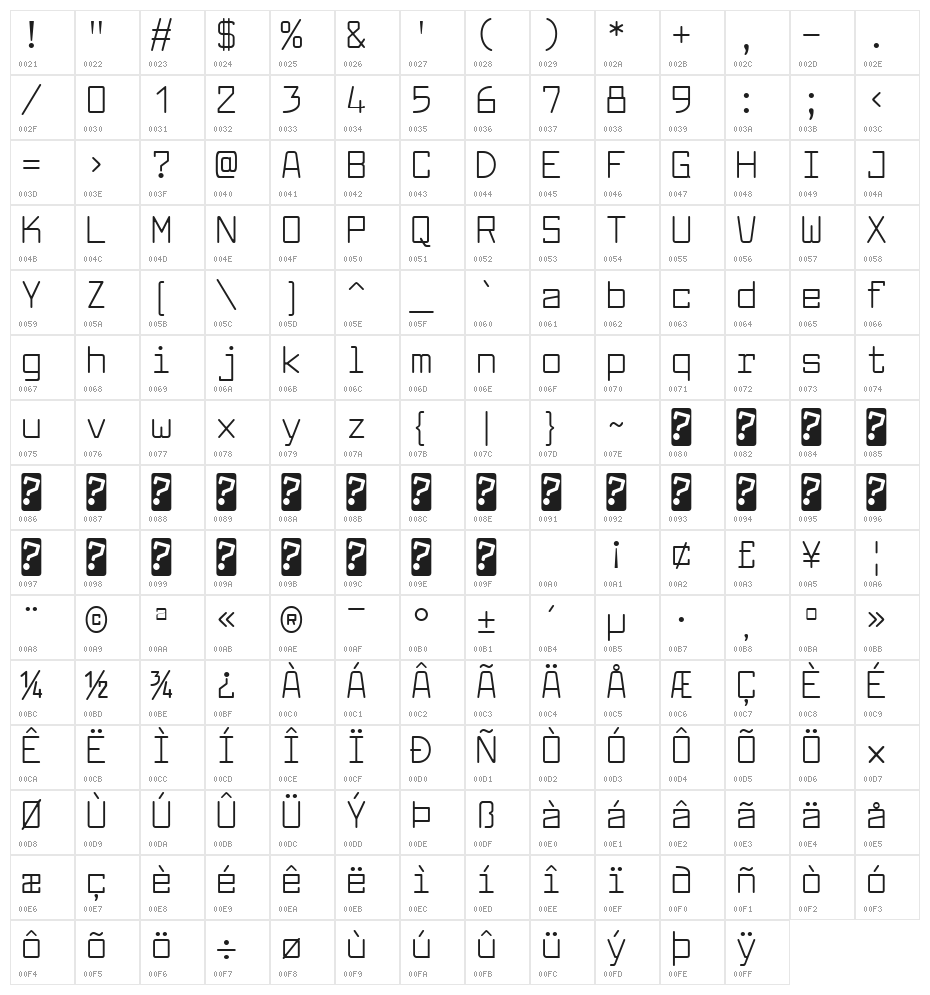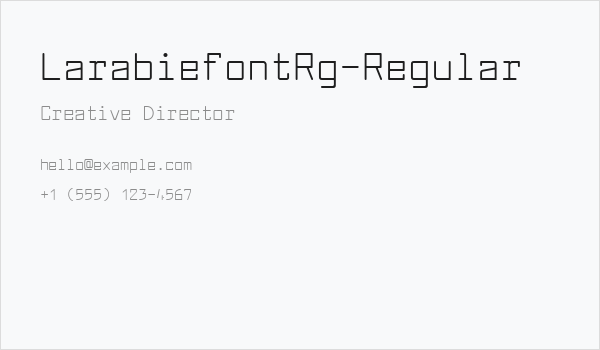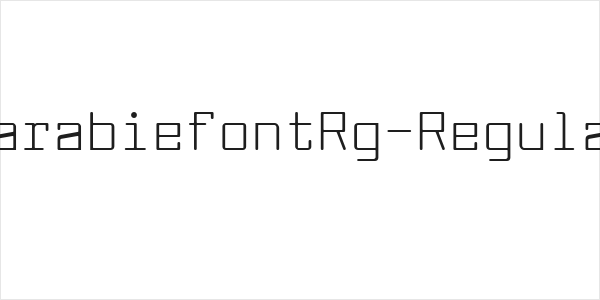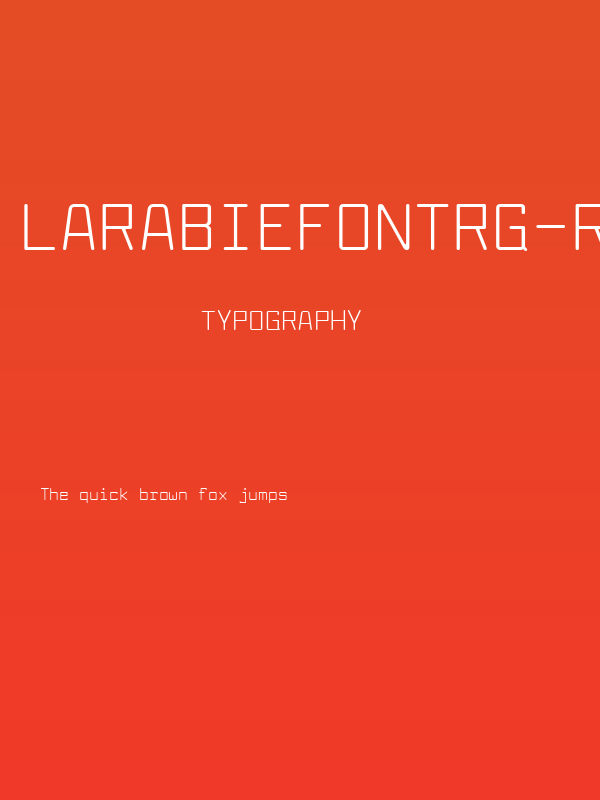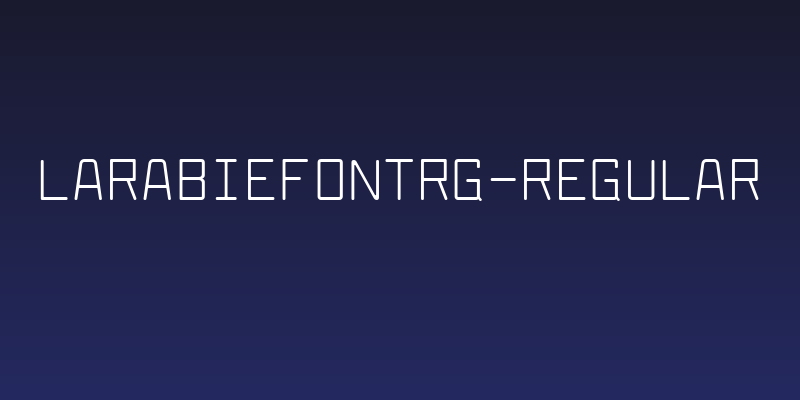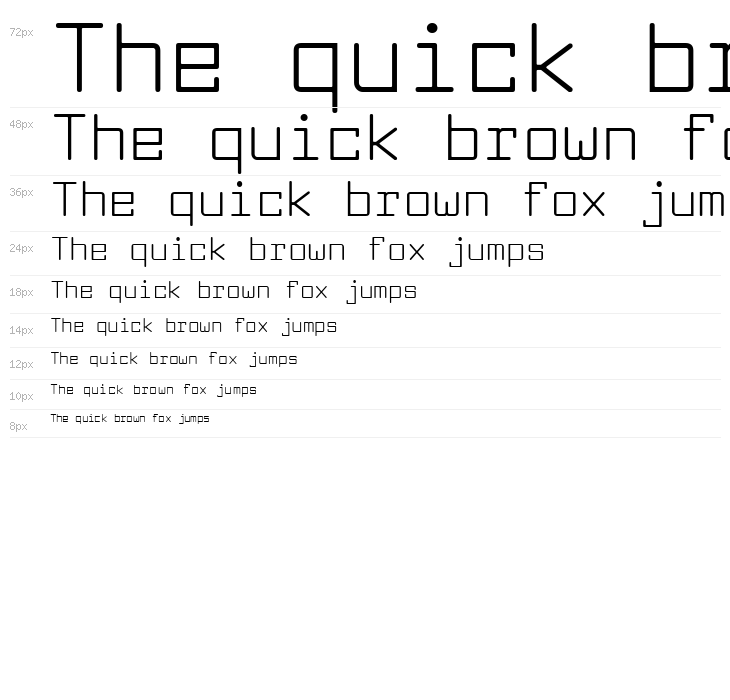
LarabiefontRg-Regular Font
LarabiefontRg-Regular Description
This typeface features a clean, geometric design with a modern aesthetic. The characters are constructed with uniform stroke widths, giving it a monospaced appearance. The letters have a slightly rounded, square-like shape that adds a futuristic and technical feel. The uppercase and lowercase letters maintain a consistent height, contributing to its orderly and structured look. The numerals and special characters are designed to match the overall style, ensuring a cohesive appearance across all elements.
| Use Case | Coding, Technical documentation, Branding |
| Proposed Projects | Ideal for coding environments, technical documentation, and modern branding projects. |